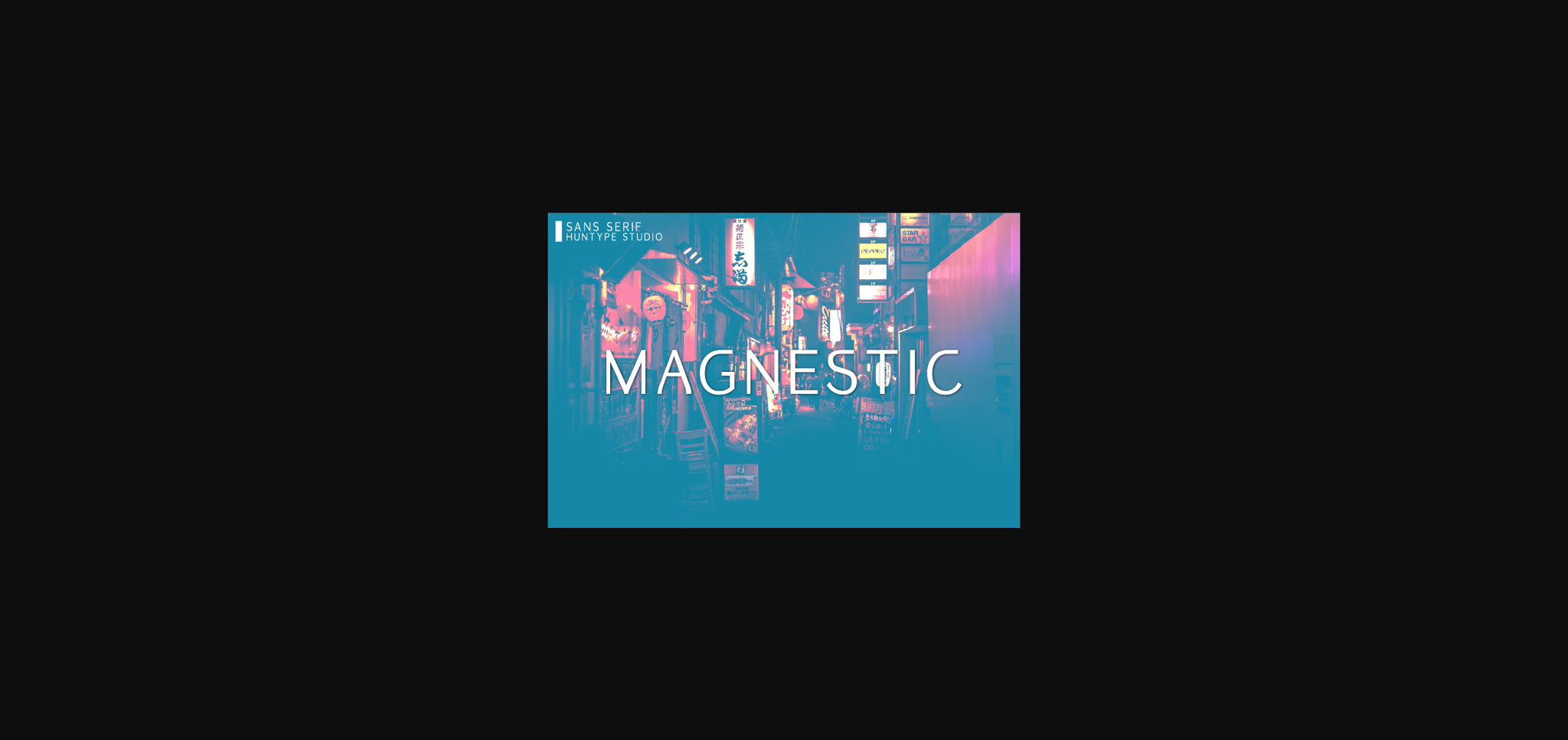
About Magnestic Font
Magnestic is a modern and clean sans serif font that is versatile and looks great in just about any context. With smooth and clean lines, and just a touch of contrast, Magnestic works beautifully for logos, branding, web headings and much more.